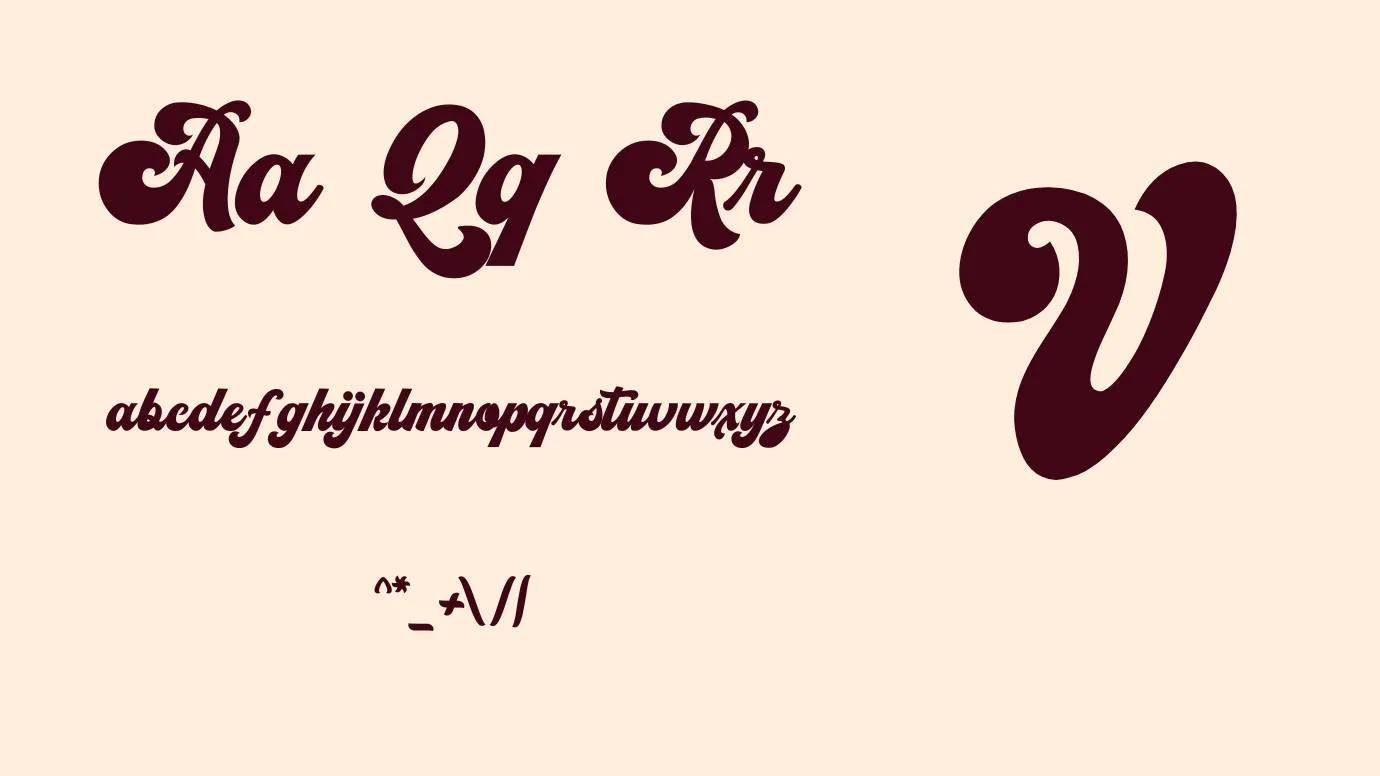
Vintage King Font is a very nice and attractive fancy typeface that was designed by Putracetol Novembria Candra Kusuma and manufactured by Putracetol Studios Kranganyar.
This font gives a vintage look, making it perfect for all types of personal and commercial projects. It is available in both formats TTF and OTF so you can use it on different types of devices such as Windows, PC, and MAC.
Vintage King Font